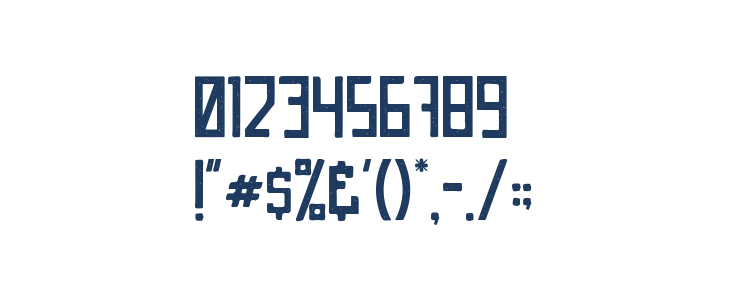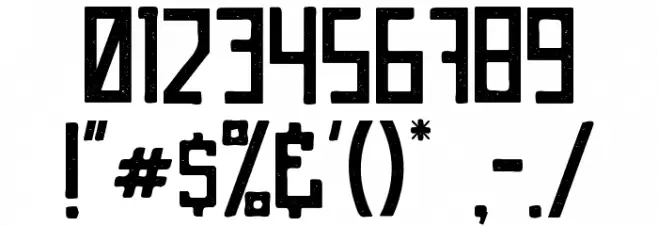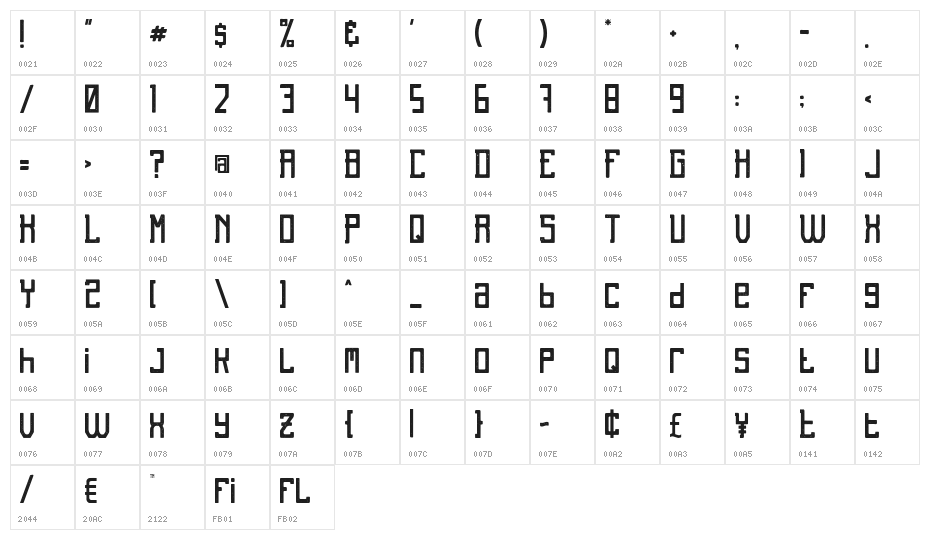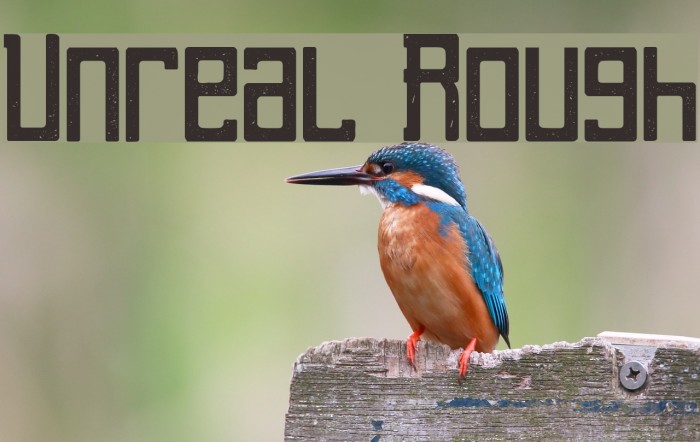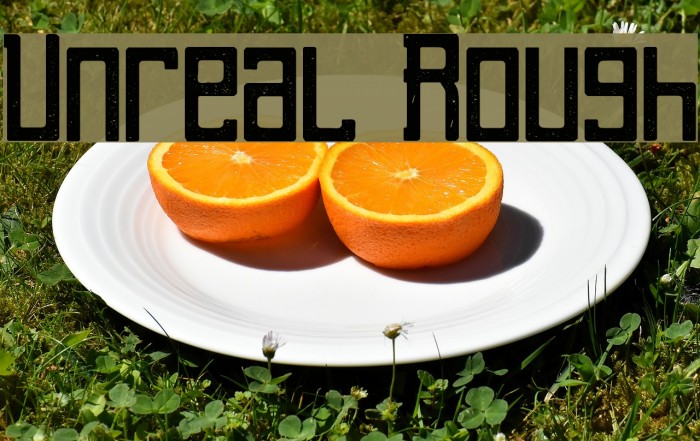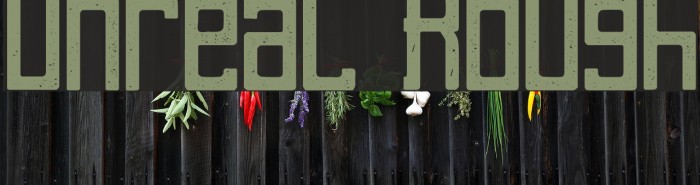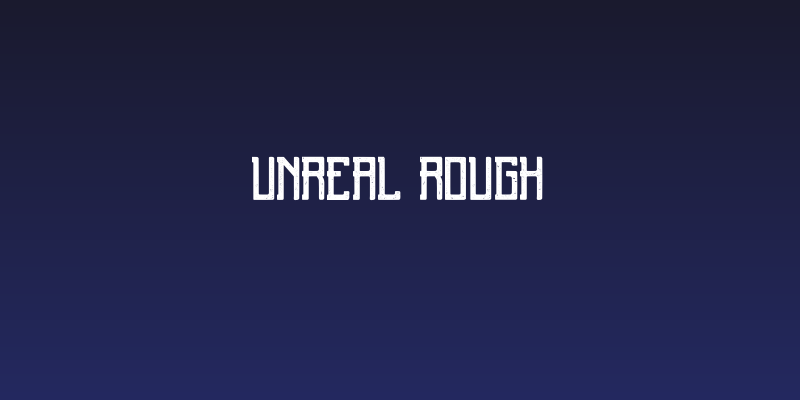
Unreal Rough Font
Unreal Rough Description
This font features a bold, rugged design with a distressed texture that gives it a worn, vintage appearance. The characters are blocky and geometric, with consistent stroke widths that create a strong, impactful presence. The uppercase and lowercase letters maintain a uniform height, contributing to a cohesive look. The numbers and special characters follow the same style, ensuring versatility across various uses. The texture adds a unique, tactile quality that makes the font stand out, ideal for projects that require a bold statement.
| Proposed Projects | Ideal for posters, branding, album covers, and any project needing a bold, vintage aesthetic. |